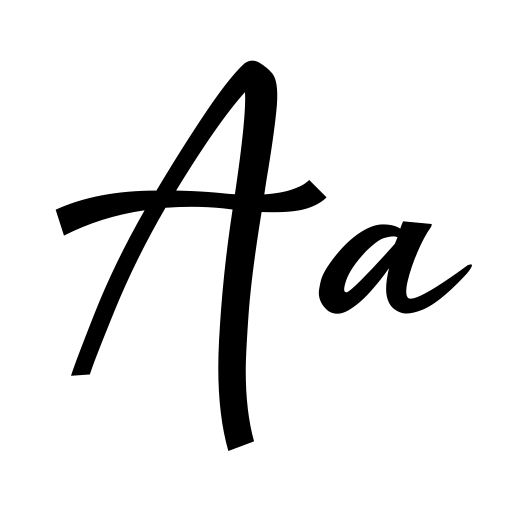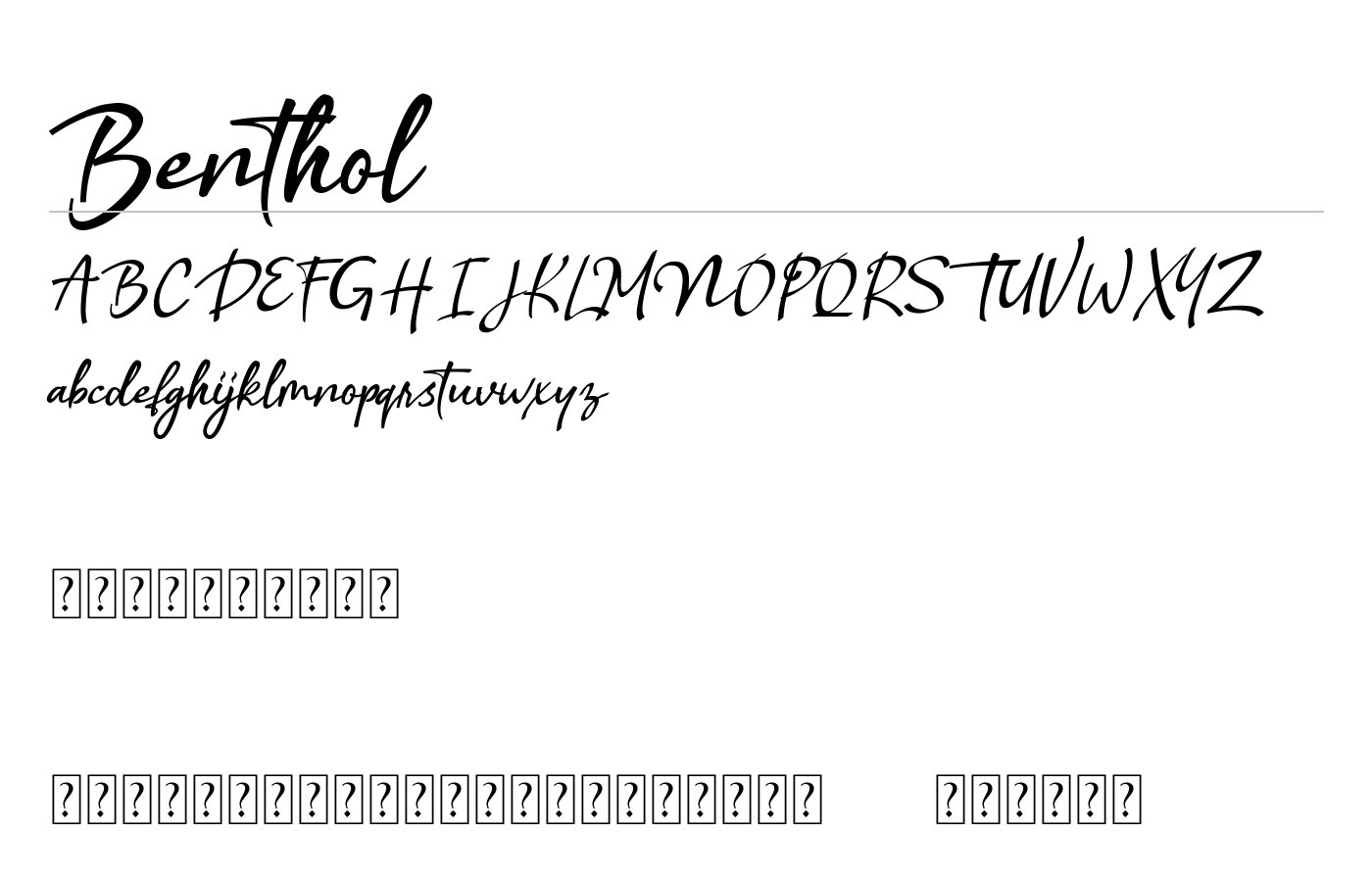
Benthol is a lively and elegant script font that features smooth, flowing strokes with moderate contrast and a slightly casual charm. Its dynamic letterforms offer a personal, handwritten feel, making it perfect for creative branding, invitations, and stylish headlines where a touch of sophistication with a friendly tone is desired. This font works beautifully in designs that aim to convey warmth and approachability while maintaining a refined aesthetic.
Benthol Font